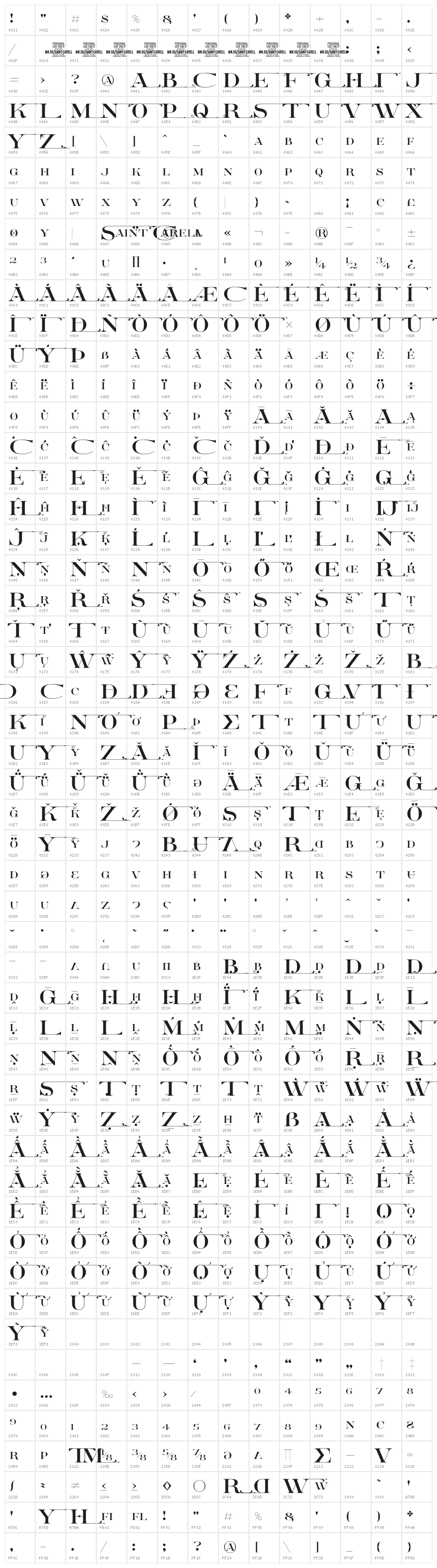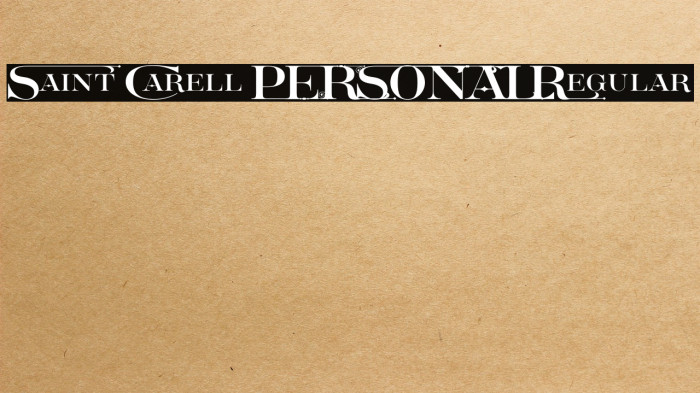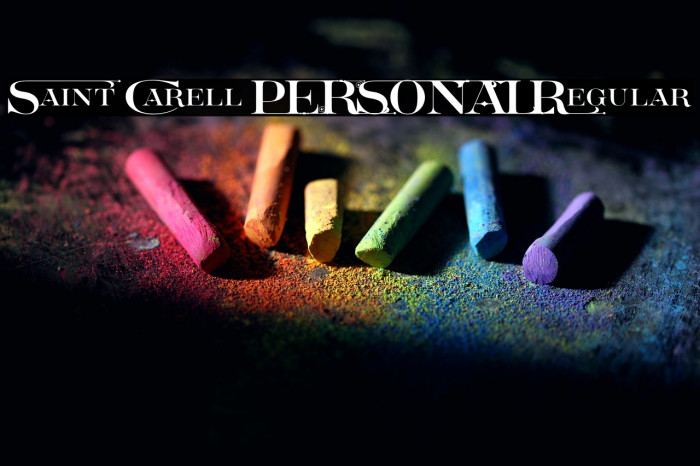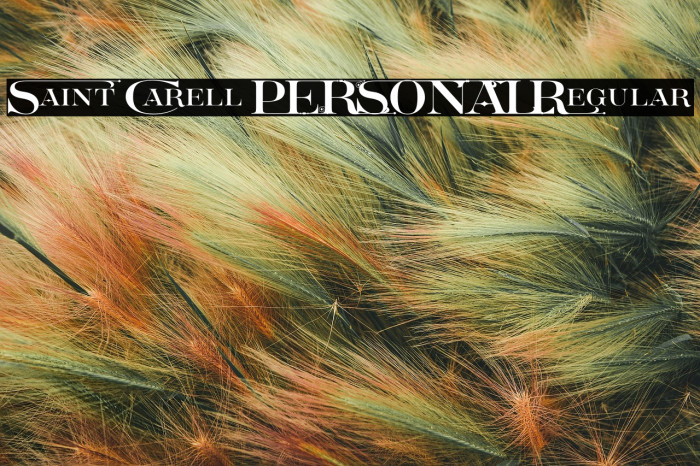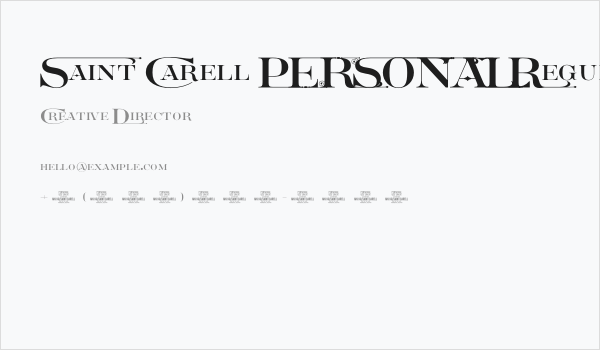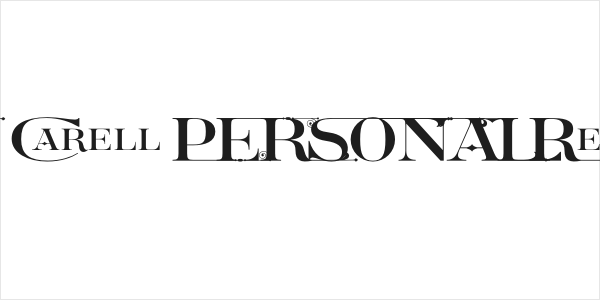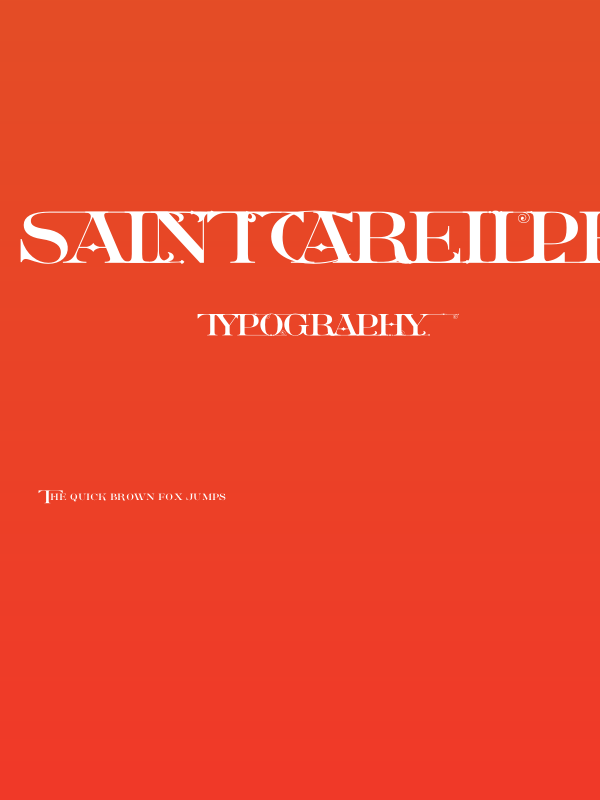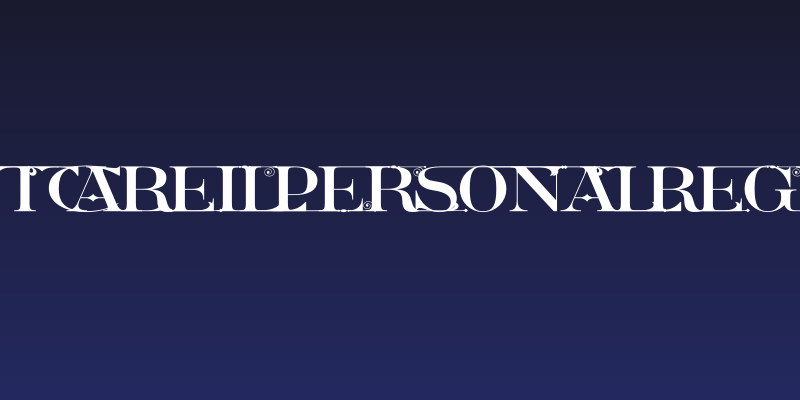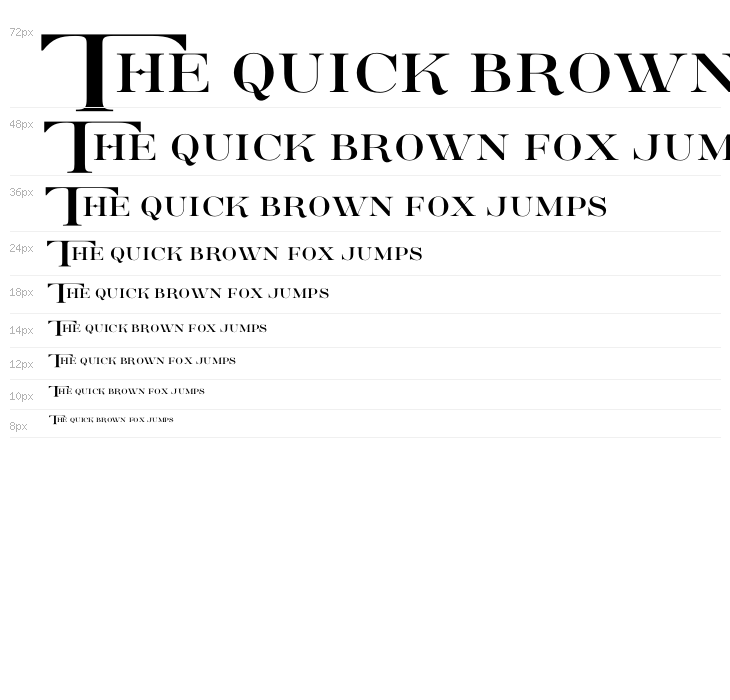
Saint Carell PERSONAL Regular Font
Saint Carell PERSONAL Regular Description
This font features a unique blend of elegance and decorative flair, characterized by its intricate swirls and embellishments integrated into the letterforms. The uppercase letters are particularly ornate, with flourishes that add a sense of sophistication and artistic expression. The lowercase letters maintain a more traditional serif style, providing a balanced contrast to the decorative uppercase. The numerals and special characters follow suit with a consistent design approach, ensuring uniformity across all glyphs. This font's distinct style makes it stand out, ideal for projects that require a touch of elegance and creativity.